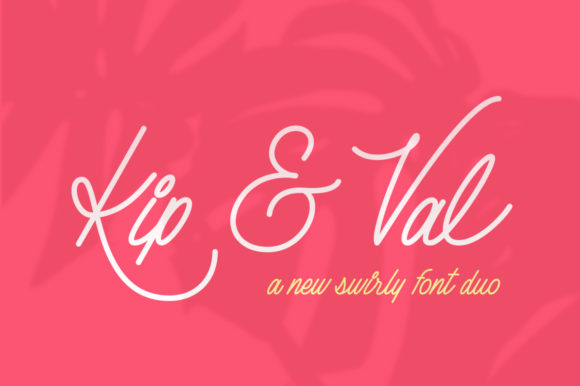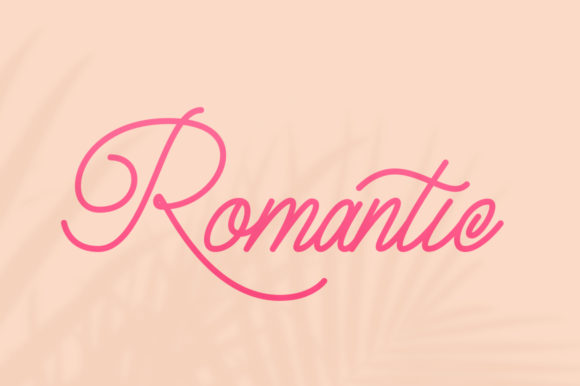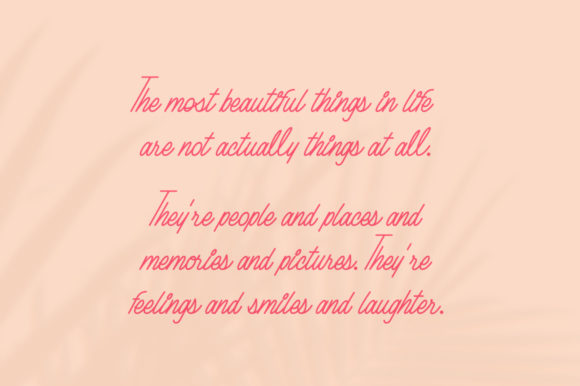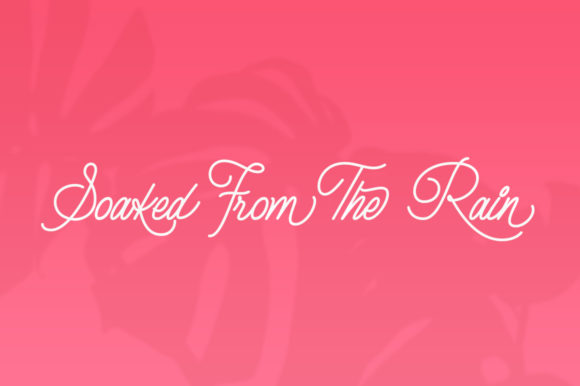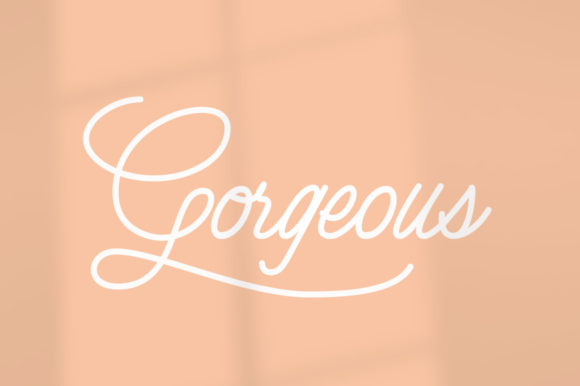
HomeScript FontsKip & Val Font Script Fonts Kip & Val Font FacebookXPinterestWhatsApp Kip & Val Font Poster 2 Kip & Val Font Poster 3 Kip & Val Font Poster 4 Kip & Val Font Poster 5 Kip & Val Font Poster 6 Kip & Val Font Poster 7 About Kip & Val Font Kip & Val is a luxurious and modern script font with a casual style. Fall in love with its beautiful appearance! DOWNLOAD NOW People also explored Snow White Font Sengoa Font Paris Doodles Christmas Time Font Soulmate Font Hittany Font Nevertheless Font Marseille Font Ampacity 402 0 TagsKip & Val Font Previous articleMedalion FontNext articleRosemhary Font LEAVE A REPLY Cancel reply Comment: Please enter your comment! Name:* Please enter your name here Email:* You have entered an incorrect email address! Please enter your email address here Website: Save my name, email, and website in this browser for the next time I comment. Personal Use Free Samureix Personal Use Free Read more about this font Tomatoes Personal Use Free Read more about this font Eigha Personal Use Free Read more about this font Mahisya Personal Use Free Read more about this font BLOG Top 10 Handwritten Fonts That Elevate Your Designs Top 10 Handwritten Fonts That Will Elevate Your Designs Handwritten fonts bring a warm, personal touch to every creative project. Whether you're designing logos, invitations,... Fonts That Capture the Spirit of New York City Top 7 Google Fonts Alternatives for Faster and Privacy-Friendly Web Design (2025) Best Fonts for YouTube Videos: Make Your Thumbnails Stand Out